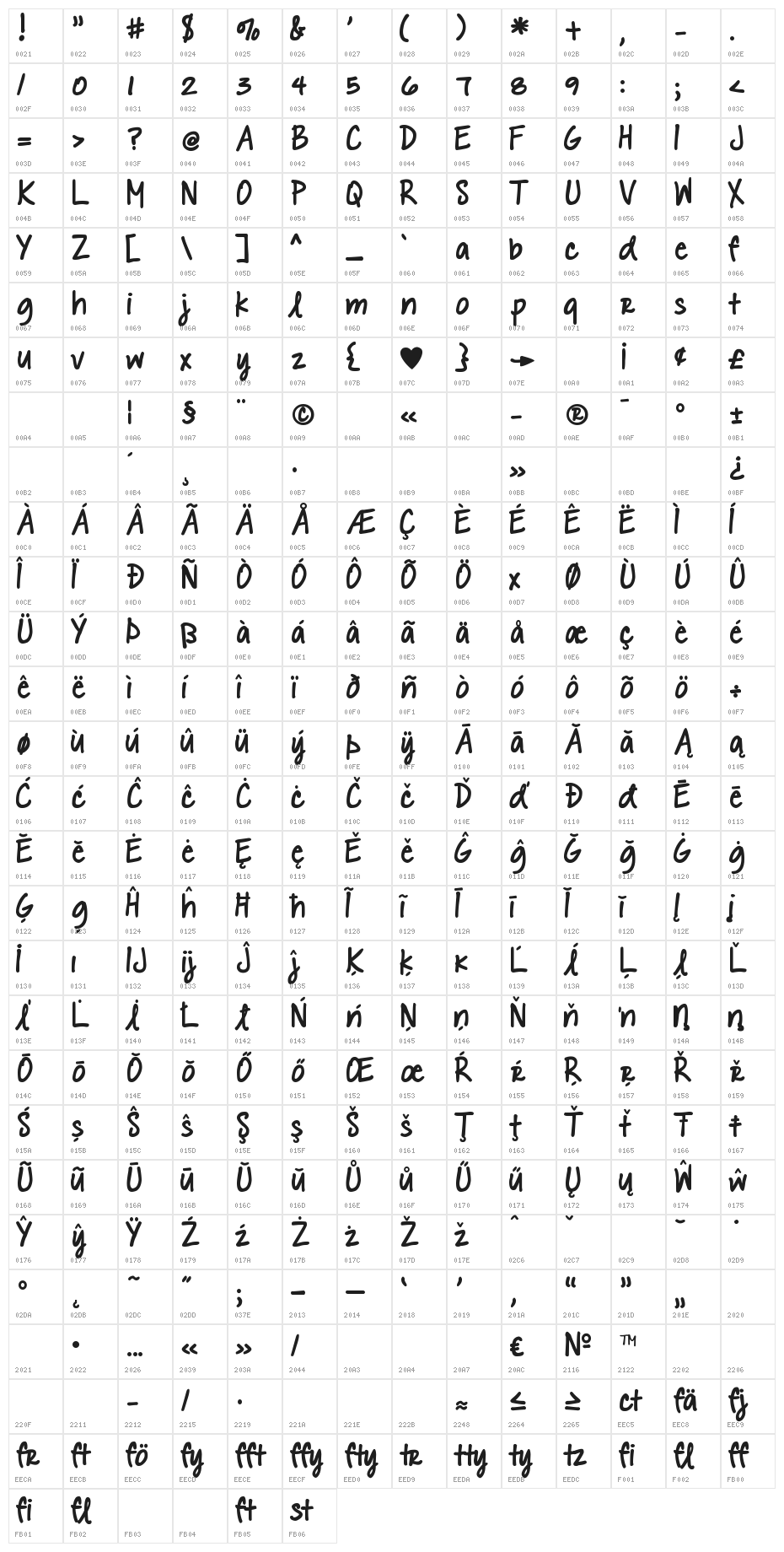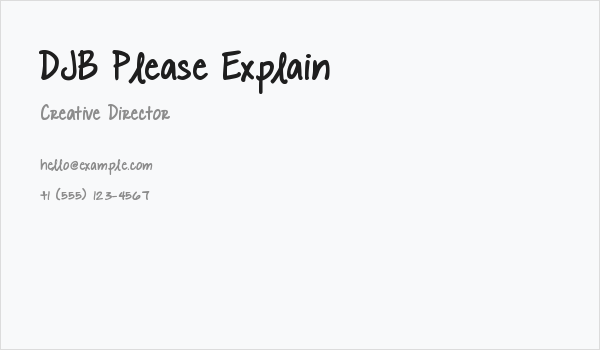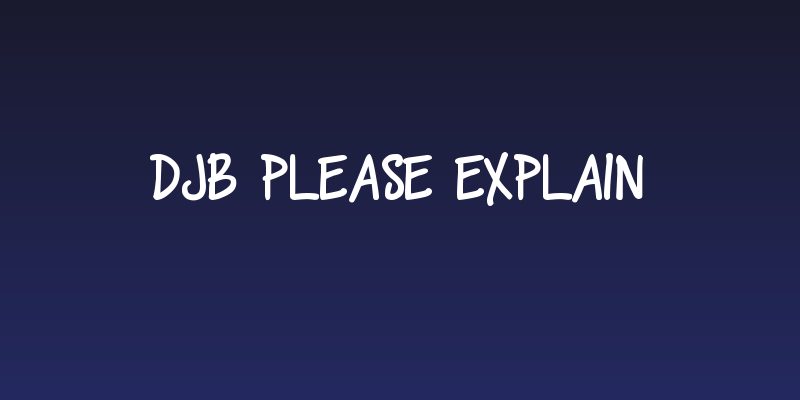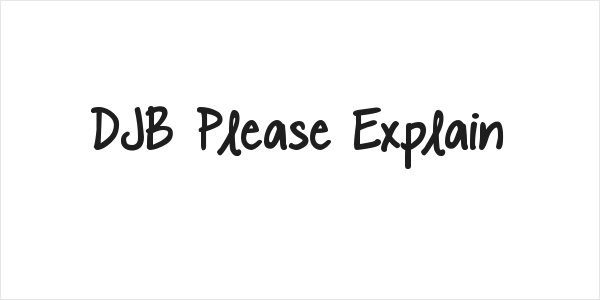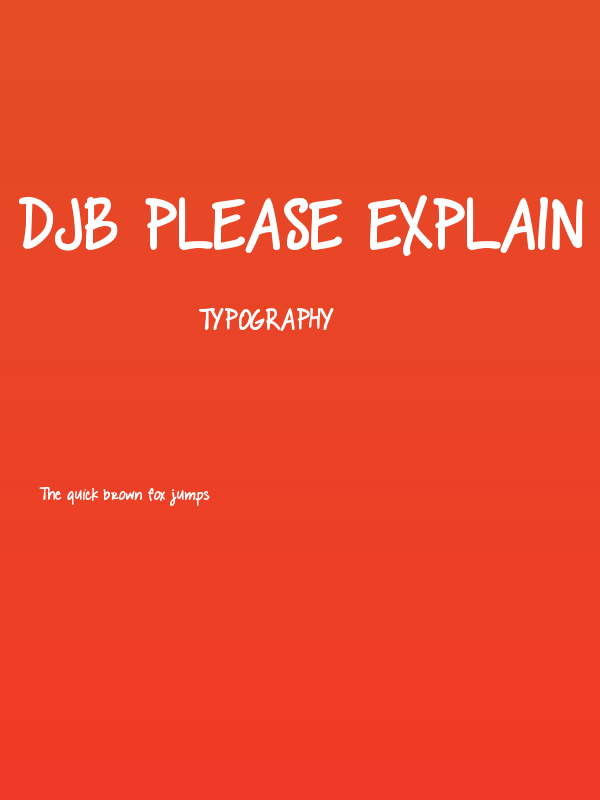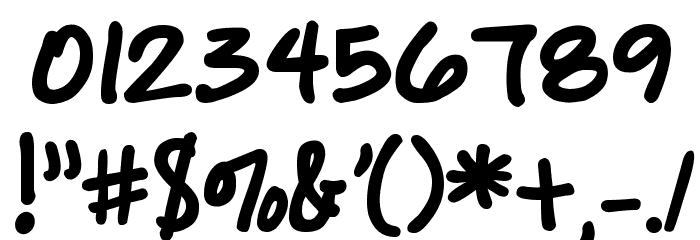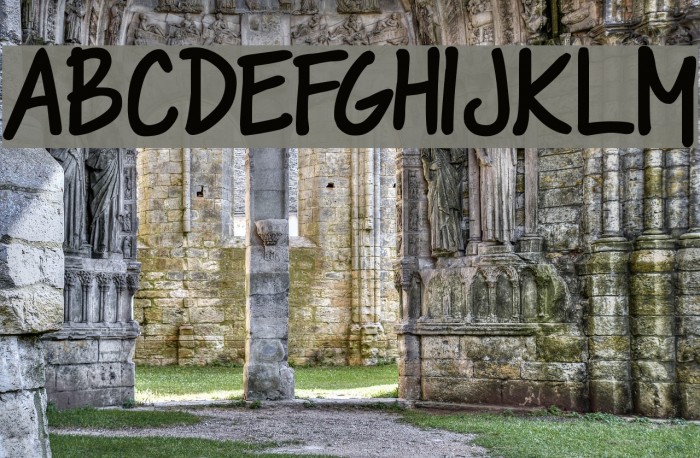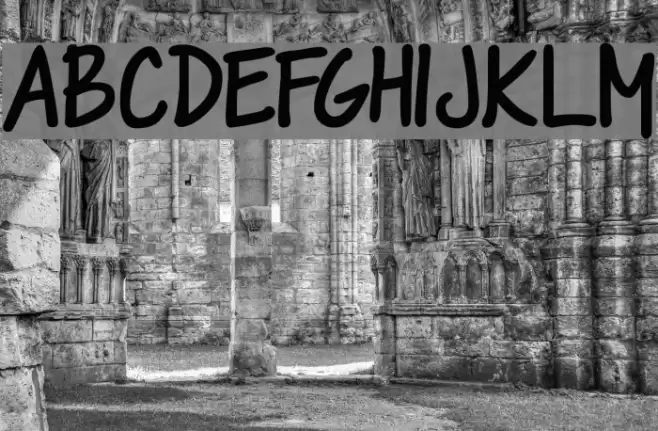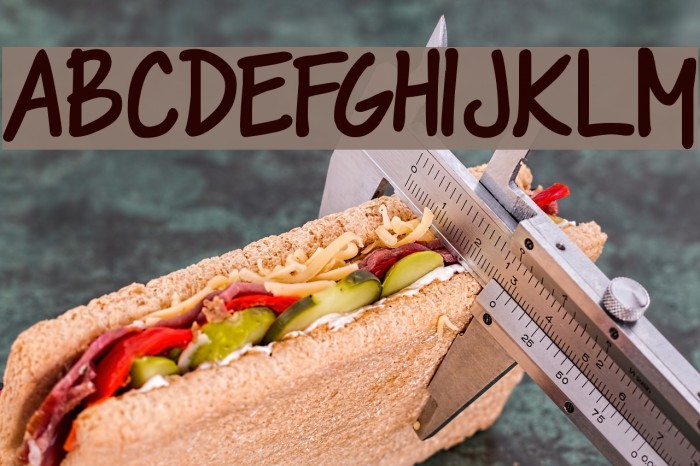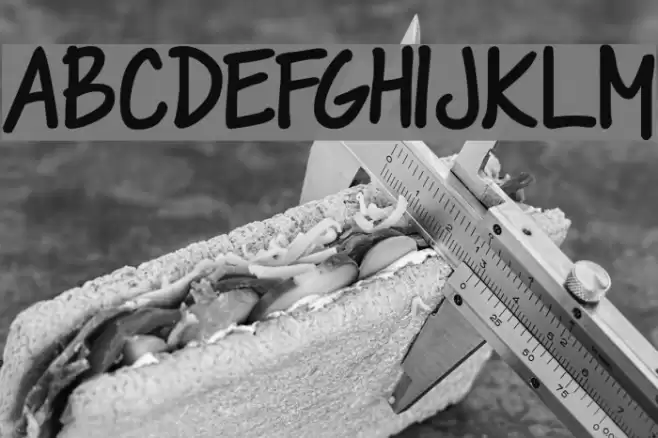
DJB Please Explain Font
DJB Please Explain Description
This font features a playful and informal handwritten style, characterized by its bold and slightly irregular strokes. The letters are rounded and have a casual, friendly appearance, making it ideal for projects that require a personal touch. The uppercase and lowercase letters maintain a consistent style, with a slight slant that adds to the dynamic feel of the text. Numbers and special characters are also included, matching the overall aesthetic with their bold and approachable design. The font's unique personality makes it suitable for creative and informal applications.
| Overall Style | Casual, Playful |
| Use Case | Headlines, Logos, Informal text |
| Proposed Projects | Ideal for greeting cards, children's books, casual branding, and social media graphics. |